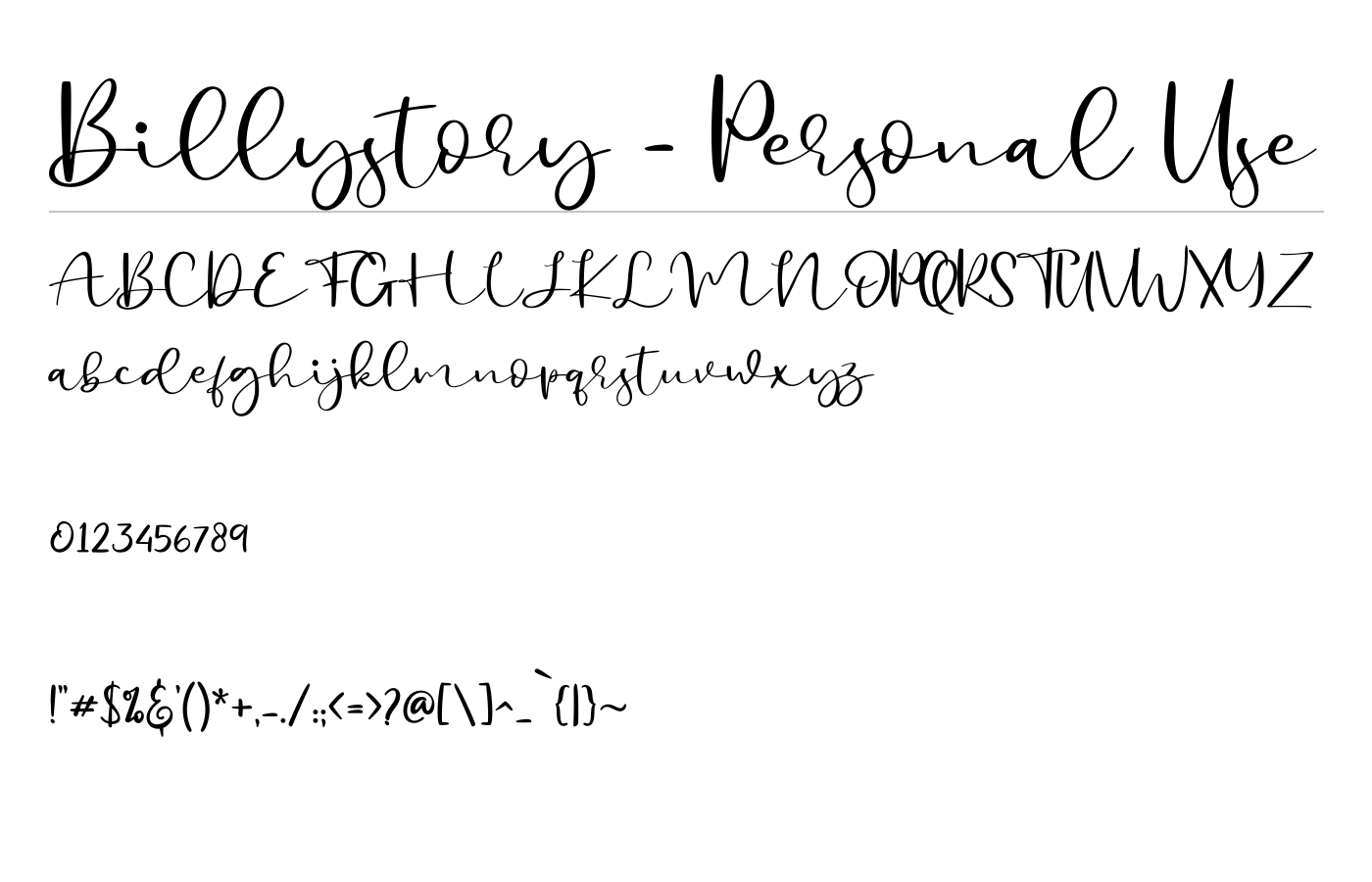
Billystory is a delicate, handwritten script font with a playful and elegant charm, featuring thin, flowing strokes and graceful loops. Its light weight and airy spacing make it perfect for personal projects, invitations, and branding that seek a warm, approachable feel. Ideal for adding a touch of whimsy and sophistication, this font works well in creative, feminine, and casual contexts.
Billystory - Personal Use Font
| Font family | Billystory - Personal Use Font |
| Designer | Sarwo Edhi Prayitno |
| Trademark | Haksen Studio |